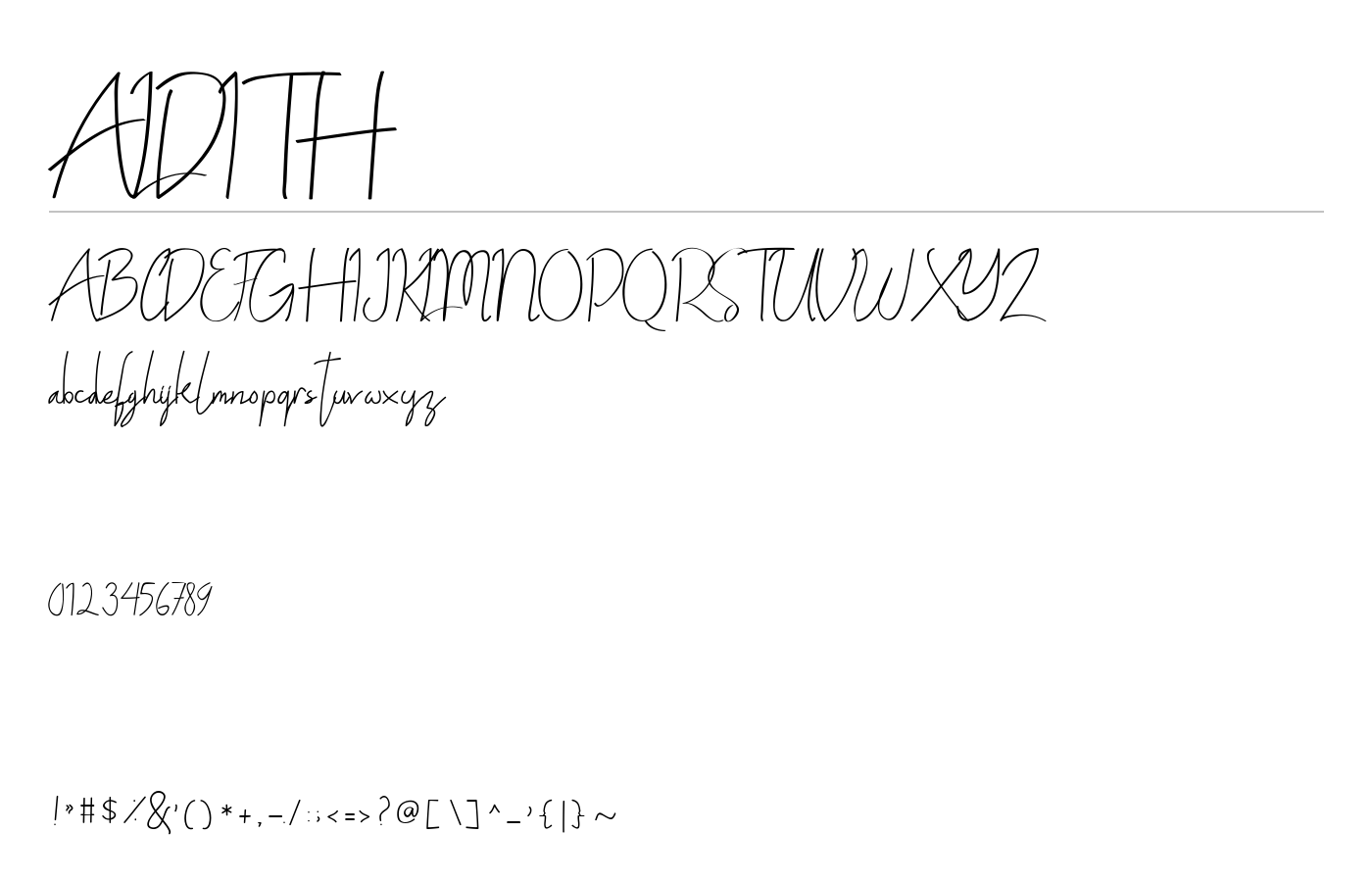
ALDITH is a delicate, narrow script font with a hand-drawn, whimsical feel, featuring tall, slender letterforms and fluid strokes that evoke a casual yet elegant style. Its light weight and airy spacing make it ideal for creative branding, invitations, or artistic editorial use where a touch of personal charm and uniqueness is desired. This font works well in designs that seek a modern, sophisticated, and slightly playful atmosphere.
ALDITH Font